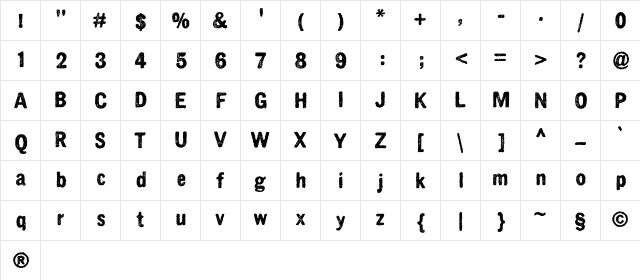
Complete Crnagorszkij Buddah Orkesztar Regular glyph index. Displaying only characters natively supported by Crnagorszkij Buddah Orkesztar Regular font.
Crnagorszkij Buddah Orkesztar is a composed and adaptable typeface that performs quietly and consistently across a wide range of design contexts.